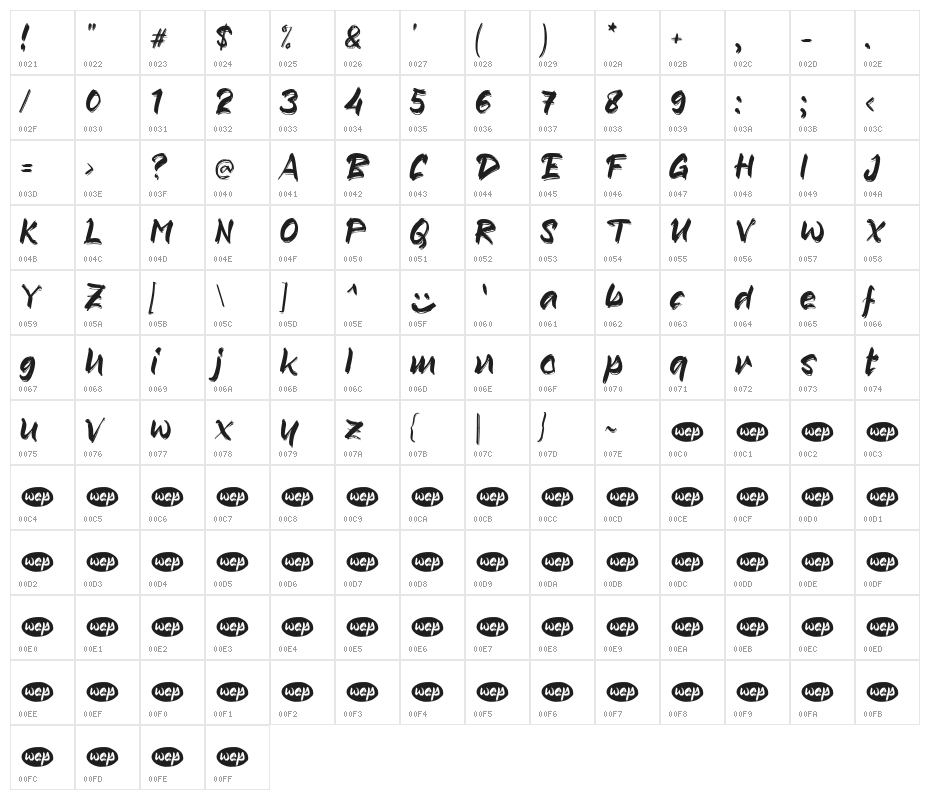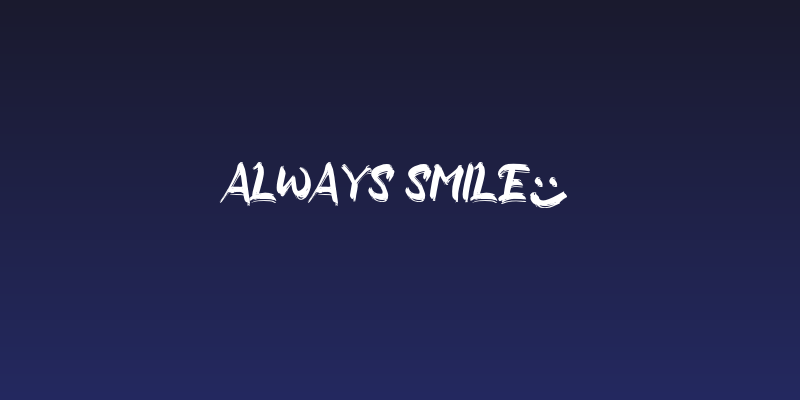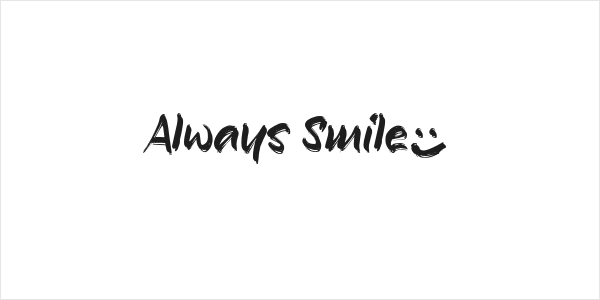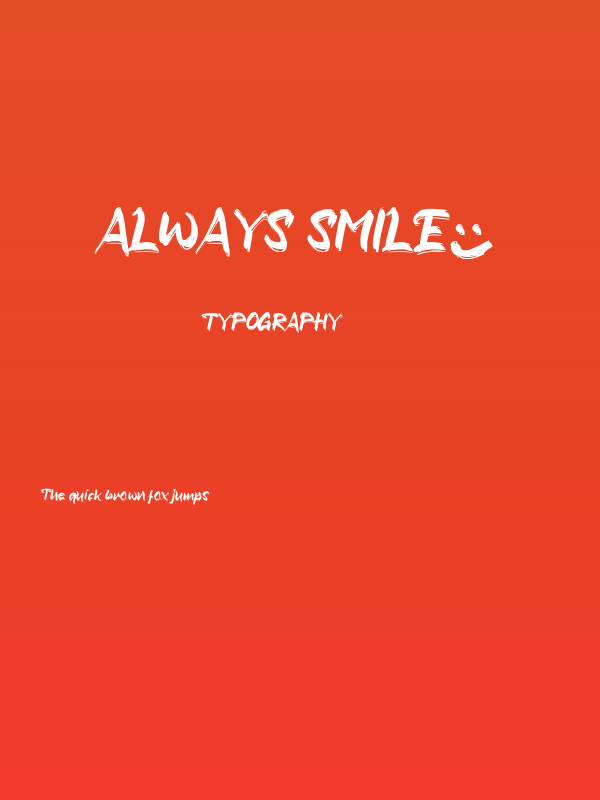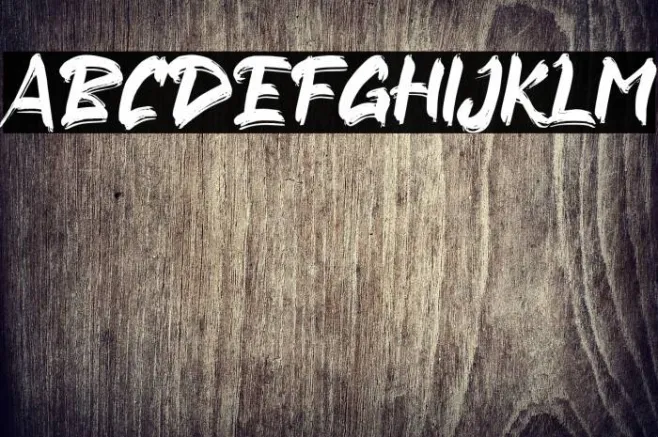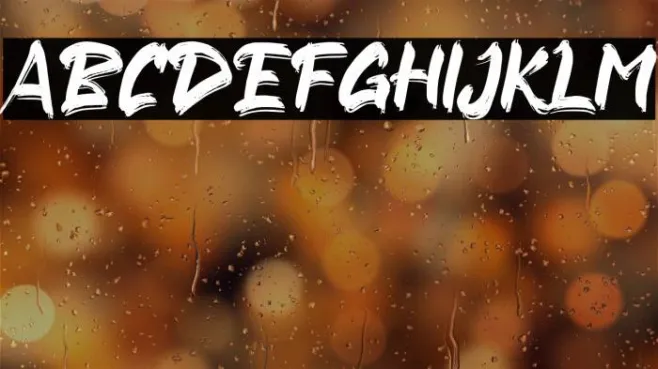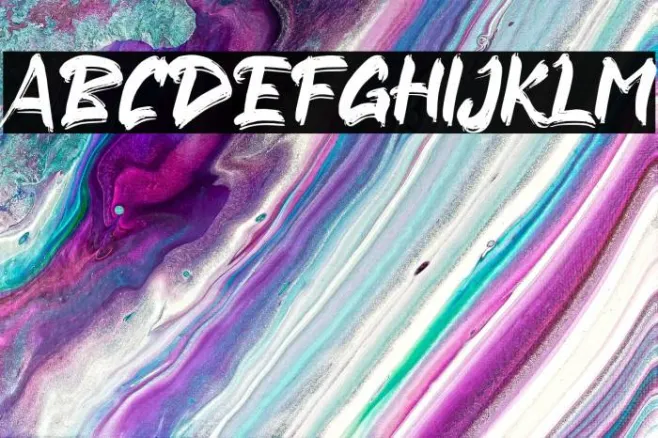
Always Smile_ Font
Always Smile_ Description
This font features a bold, expressive brush style with a dynamic and energetic appearance. The strokes are thick and uneven, giving it a hand-painted look that is both artistic and spontaneous. Each character exhibits a sense of movement, with varying stroke widths that add depth and texture. The uppercase and lowercase letters maintain a consistent style, while the numbers and special characters complement the overall aesthetic. The font's lively and bold nature makes it ideal for projects that require a personal and creative touch.
| Proposed Projects | Ideal for branding, posters, artistic projects, and any design requiring a creative and personal touch. |